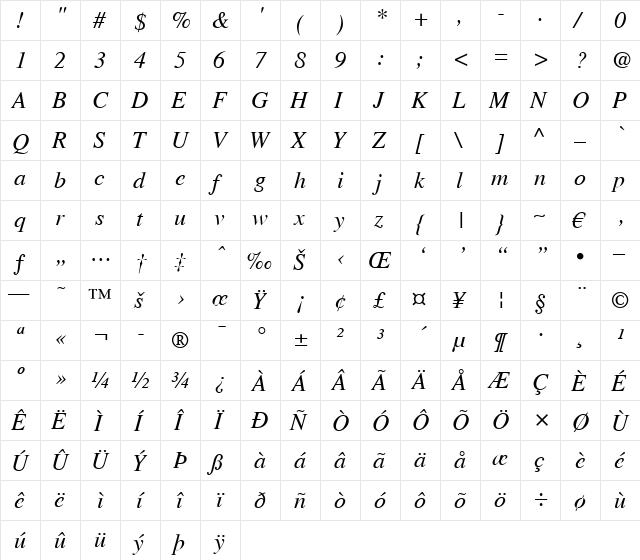
Thames Italic
Design Context for Thames Typeface
Thames takes a measured approach to typography — its balanced proportions and neutral character make it a reliable workhorse for both digital and print work. The slanted form adds forward momentum and visual energy.
Pro Tip: Try Thames for annotation and caption copy alongside an upright companion — the contrast in angle creates a dynamic but ordered typographic system.